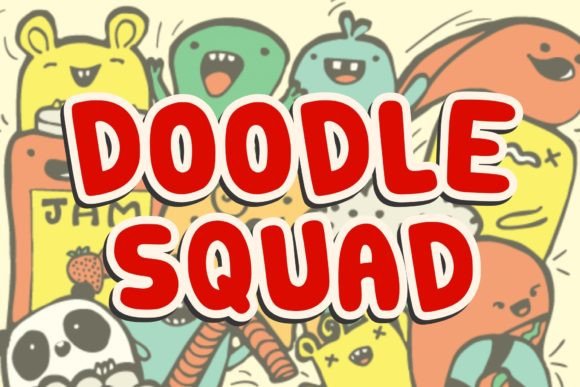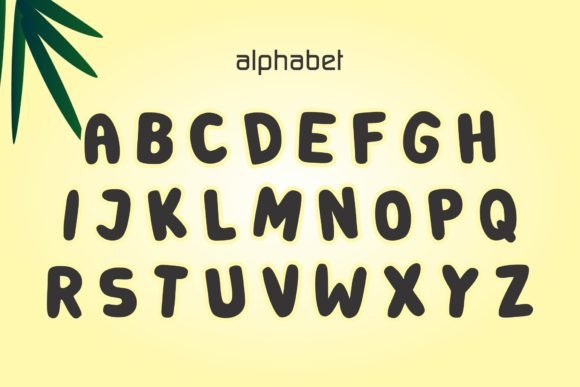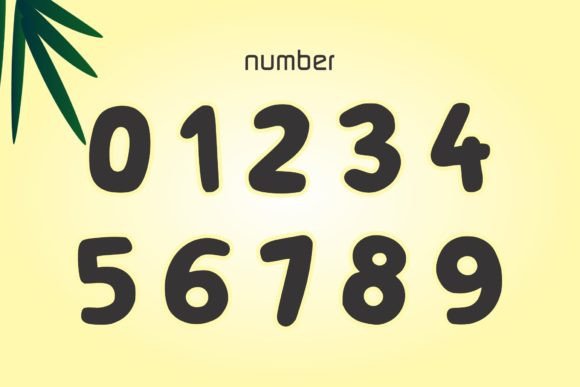
Introduction to Slow Bounce Font
Slow Bounce is a very unique and sweet display font.
πŸ‘€ Author riki.studio
Whether you’re using it for designs related to cartoons, children’s games, or just any creation that requires a beautiful touch, this font will make a great choice .
Key Features of Slow Bounce Font
Why Choose Slow Bounce Font?